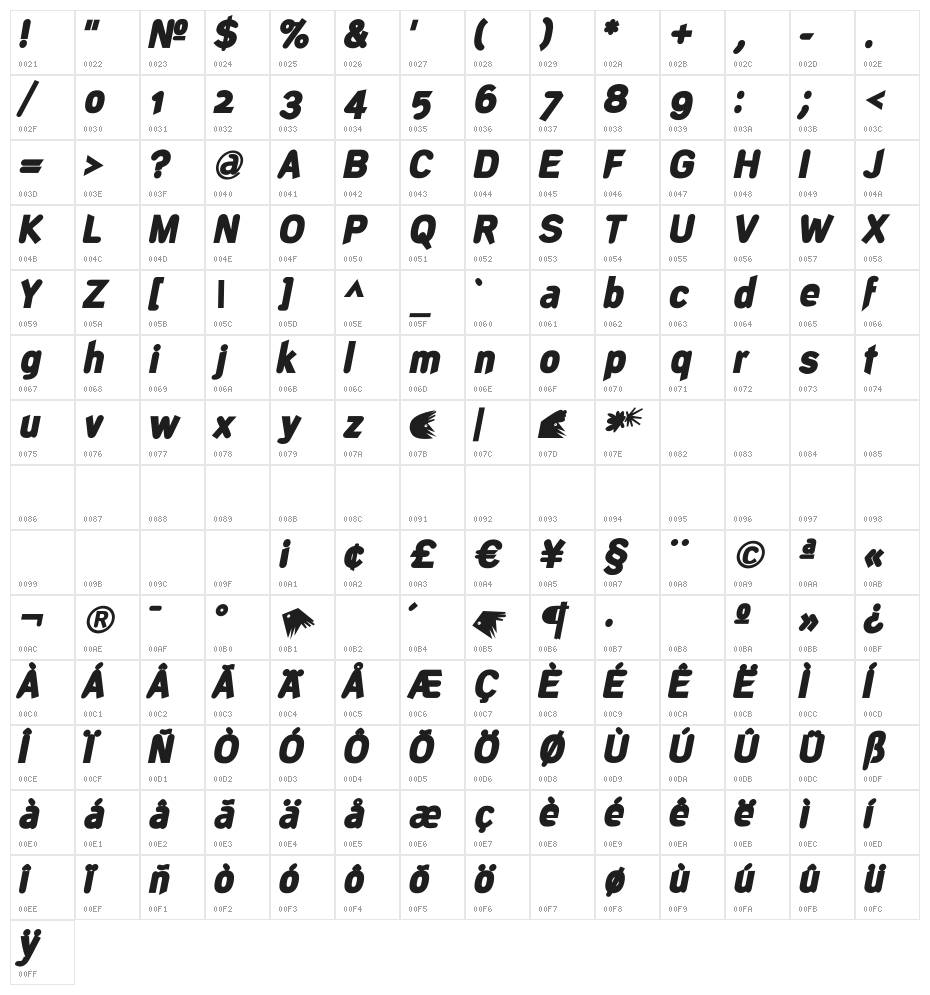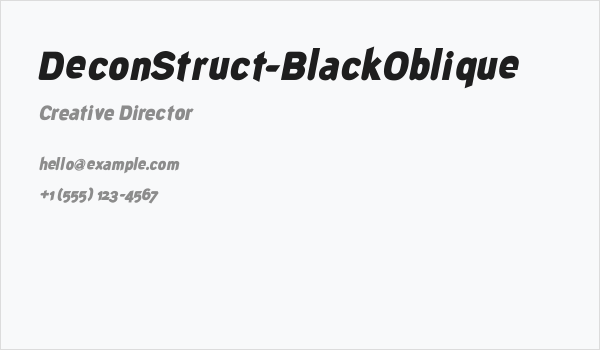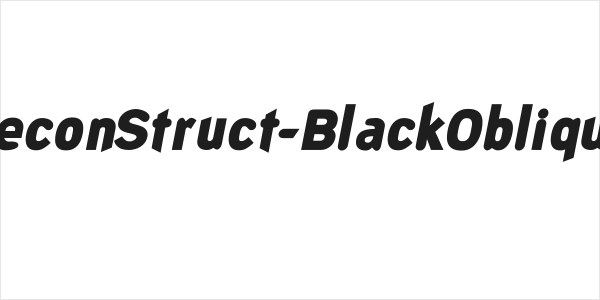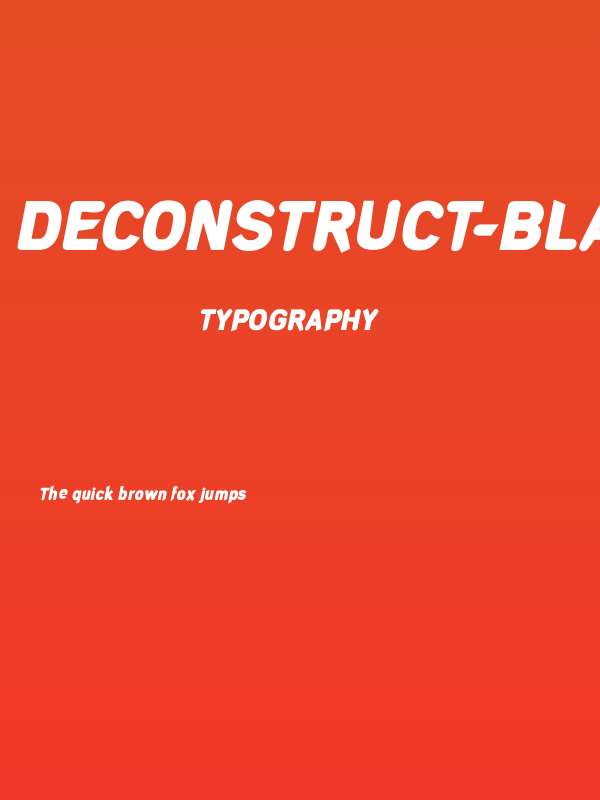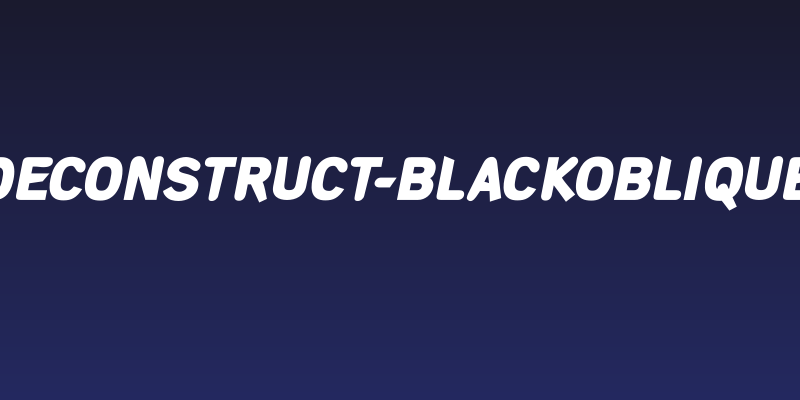
DeconStruct-BlackOblique Font
DeconStruct-BlackOblique Description
This font features a bold and dynamic style with a strong oblique slant, giving it a sense of motion and energy. The characters are thick and robust, with a consistent weight that enhances readability while maintaining a striking presence. The uppercase and lowercase letters are well-proportioned, and the numerals are clear and distinct. Special characters are included, adding versatility for various design needs. The overall appearance is modern and impactful, making it suitable for attention-grabbing headlines and branding.
| Proposed Projects | Ideal for sports branding, dynamic posters, modern advertisements, and bold headlines. |